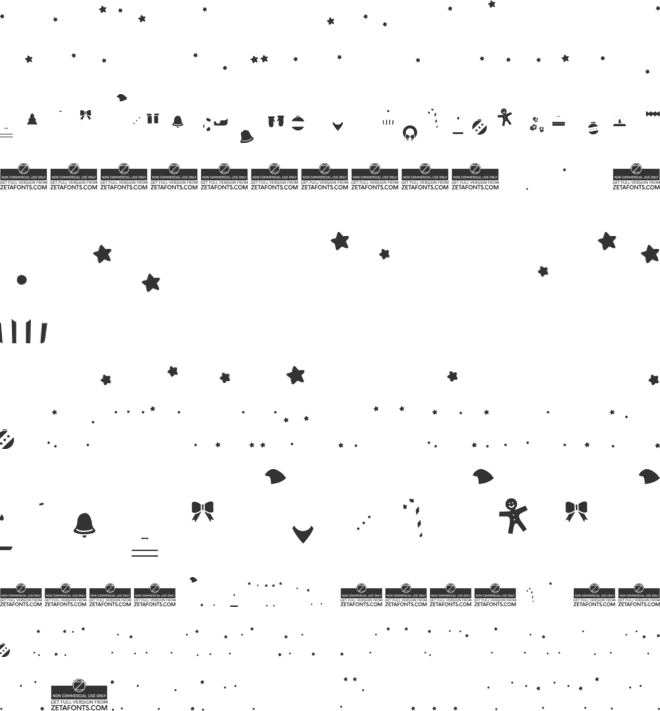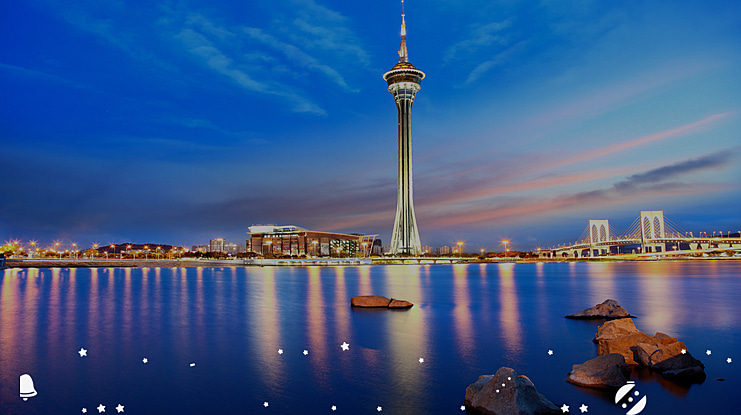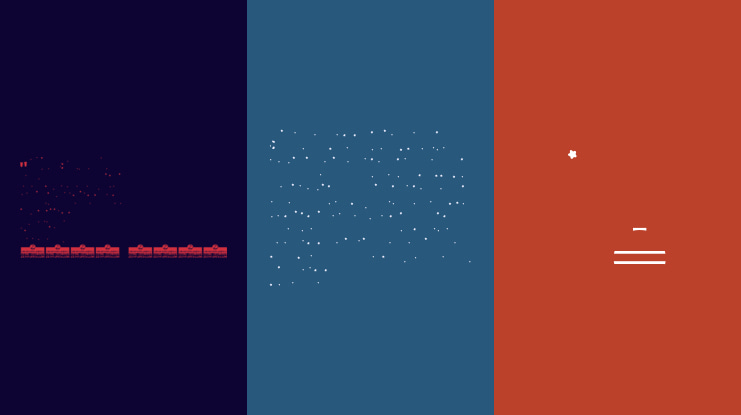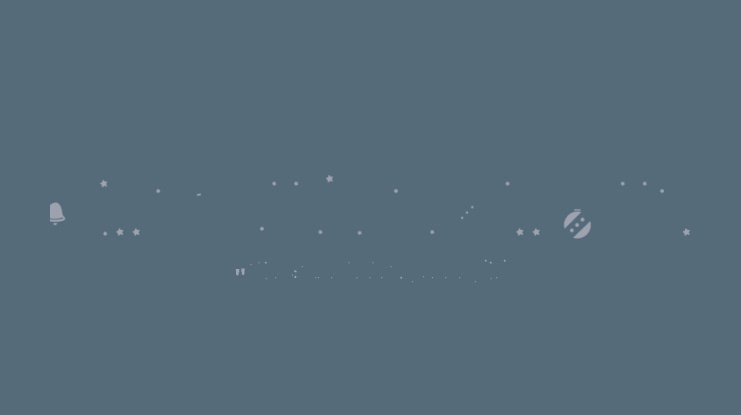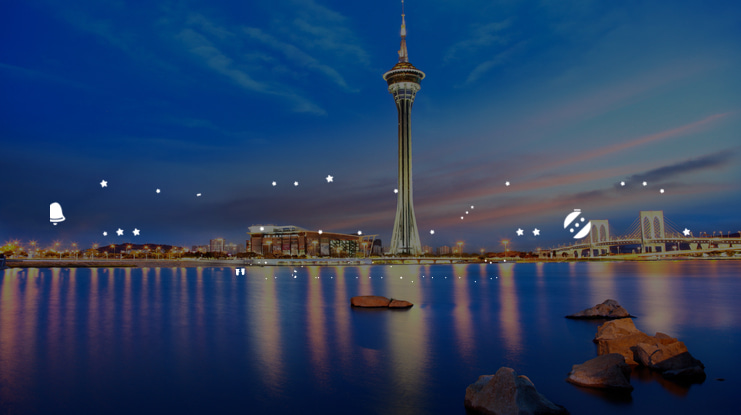
The Hello family features a sans serif companion (Hello Sans) as well as a christmas-themed version (Hello Christmas) with a set of Icons (Hello Christmas Icons), both featuring multilayer color fill.